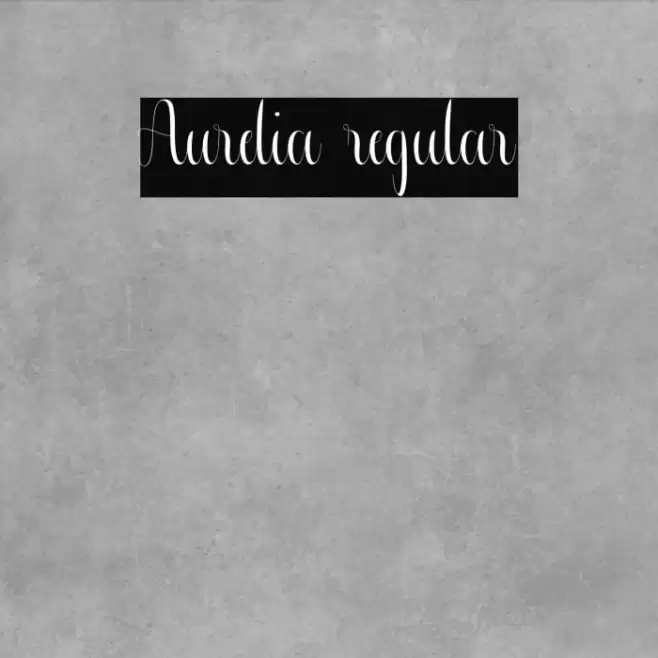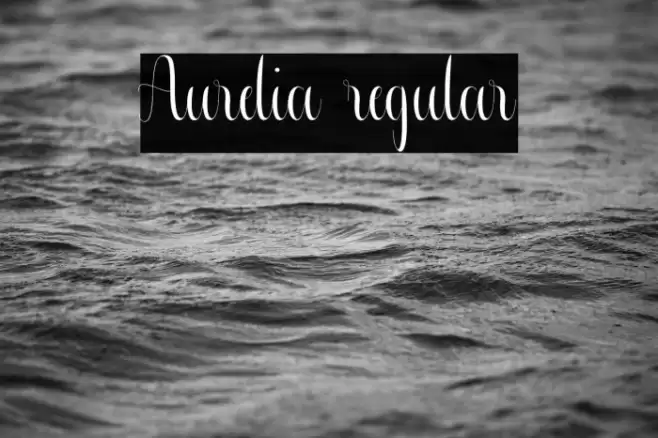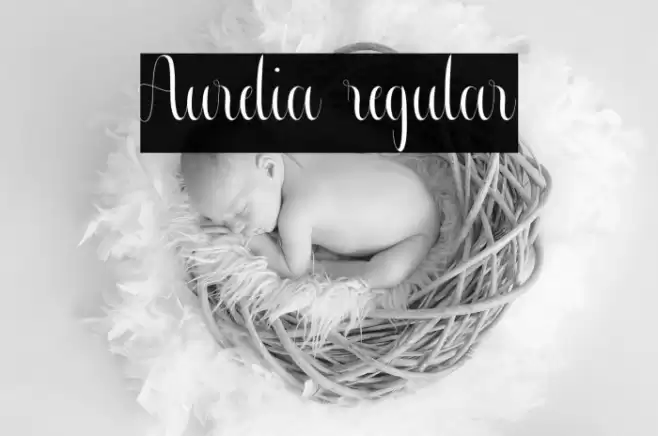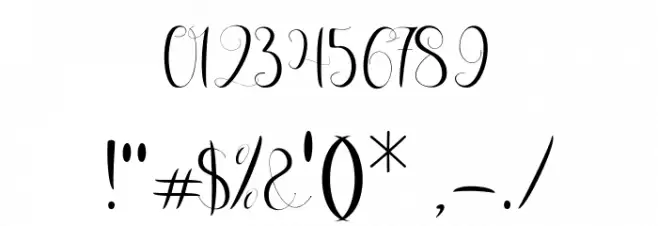
Aurelia regular Font
Aurelia regular Description
This elegant script font features a flowing, cursive style with high contrast between thick and thin strokes. The uppercase letters are ornate, with intricate loops and flourishes that give a sense of sophistication and grace. The lowercase letters maintain a consistent style, with smooth, connected strokes that enhance readability while retaining a decorative flair. The numerals and special characters are designed to match the overall aesthetic, providing a cohesive look across all glyphs. This font is ideal for projects that require a touch of elegance and refinement.
An elegant script font with flowing, cursive strokes and high contrast from Regular fonts.
- Proposed Projects: Wedding invitations, luxury branding, elegant packaging, greeting cards, and decorative headlines.
- Overall Style: Elegant, Decorative
- Use Case: Logos, Headlines, Invitations